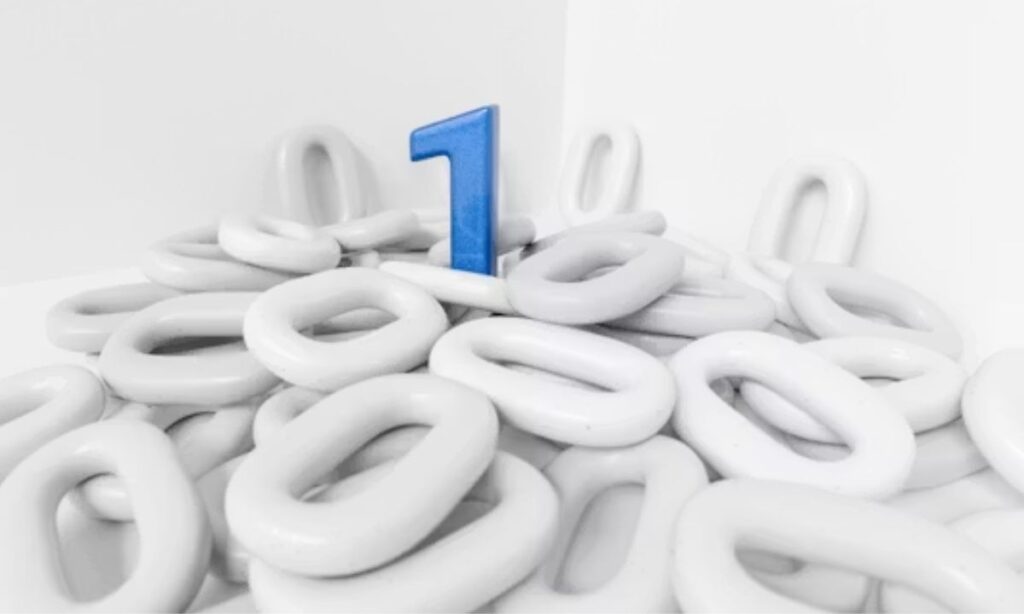
Font Numbers: Free Styles, Generator & Copy-Paste
Font Numbers
Numbers are everywhere  in pricing displays, social media posts, brand identities, and data dashboards. Yet most designers overlook the power of number fonts in shaping how audiences perceive information. The right number font style does more than display digits; it communicates trust, energy, elegance, or urgency. Whether you need a number font generator for copy paste use or a commercial use typeface for professional branding, understanding font numbers is the first step toward smarter typography decisions.
Number Font Categories and Their Best Use Cases
Number fonts span a wide range of categories, each serving distinct design purposes. Monospace and typewriter styles suit coding interfaces and technical documents where alignment matters. Bold and sans serif bold fonts work well for headlines and attention grabbing displays. Circled numbers, black bubble numbers, and parenthesized styles are popular for ordered lists and instructional content. Roman numerals and old style figures with varying heights bring a classical, editorial feel to luxury branding. For purely expressive work, decorative styles like crown script, petal wrap, and arrow script add personality to creative projects. Matching the right category to your use case ensures both visual harmony and functional clarity.
How Different Number Font Styles Influence User Perception
Typography carries psychological weight, and number fonts are no exception. Bold and double struck styles project confidence and authority, making them ideal for financial figures and pricing displays. Cursive, script, and calligraphy inspired number styles evoke warmth and creativity, suiting boutique brands and handcrafted products. Upside down, mirror text, and flip-reverse styles create visual intrigue but can challenge readability when overused. Streamline and shockwave text convey motion and energy, often used in sports or tech contexts. Understanding visual weight and how each number style communicates emotion helps designers make intentional choices that align typography with brand messaging.
Best Font Numbers for Business and Selling Applications
In business typography, number fonts must balance aesthetics with legibility. For pricing displays and financial figures, fonts like Revenue, Strasse, Greenback, and Depot deliver clean, professional readability with strong commercial use licensing. Sans serif bold and monospace options ensure currency symbols dollar, euro, pound, and yen signs  remain crisp at any size. Fonts such as Premium, Indicia, Claimcheck, and Trafalgar are trusted across invoices, retail signage, and packaging. Font pairing matters too; combining a structured number font with complementary typefaces like Tungsten Rounded or Sentinel strengthens brand identity and creates a cohesive visual language across all business touchpoints.
Number Fonts for Social Media Content
Social media thrives on visual distinctiveness, and stylish numbers are a simple way to stand out. Copy paste fancy numbers generated via a number font generator require no design software  just paste Unicode based styles like circled numbers, wide font, and double circled directly into captions or bios. Decorative styles such as sparkle line, elegant script, flower charms, and blocky bold add flair to Instagram and Twitter content without complex editing. Star borders, crown borders, and glitter edge number styles amplify aesthetic appeal in announcement posts and countdowns. When used consistently, stylish number fonts become part of a recognizable social media identity
Decorative Font Numbers vs Readable Font Numbers
Choosing between decorative and readable number fonts depends entirely on context. Readable fonts  including monospace, sans serif bold, wide font, and outlined styles  prioritize legibility and are best for data heavy applications, navigation, and interfaces. Decorative numbers like petal wrap, soft curl, flowing lines, and looped frame sacrifice some clarity for visual character, making them better suited for headers, posters, and artistic content. Neither approach is universally superior; the decision hinges on font weight, display size, and audience. A layered box or twin pillar style may look stunning on a poster but fail as a price tag in a retail environment.
Accessibility Considerations for Number Fonts
Accessibility in number typography is non negotiable for inclusive design. Font choices directly affect users with visual impairments, dyslexia, or low contrast sensitivity.
Minimum Readability Standards
Monospace, sans serif bold, and wide font styles consistently meet minimum readability standards due to their open letterforms and uniform spacing. Adequate font size, strong contrast ratios, and sufficient font weight are baseline requirements. Display fonts should always be tested at small sizes before deployment.
Avoiding Ambiguous Characters
Certain number styles introduce dangerous ambiguity  the classic example being the zero versus the letter O in outlined or double struck fonts. Upside-down numbers, mirror text, and reversed text styles can disorient users entirely. Opting for monospace or typewriter fonts in functional interfaces, where character distinction and number clarity are critical, significantly reduces misread errors and improves overall font legibility.
Comparison of Popular Number Font Styles
Font NameStyle TypeBest Use
Revenue / StrasseSans-serif modernBusiness, pricing
Greenback / ClaimcheckDisplay serifFinancial, retail
Crash NumberingDecorative boldHeadlines, posters
KG Traditional FractionsScript/fractionEducational content
Jersey M54Athletic boldSports, fitness brands
Dividend / DepotClean sansCorporate, data display
Elegant ScriptCalligraphyLuxury, invitations
Blocky Bold / Dark ShineDecorative displaySocial media, events
With so many number font styles available — from fancy copy paste generators to commercial-use typefaces — there has never been a better time to be intentional about your typography. Use a number font generator to preview styles quickly, check legibility at different sizes, and ensure licensing fits your project needs. The right font numbers choice, made thoughtfully, can elevate any design from ordinary to truly memorable.